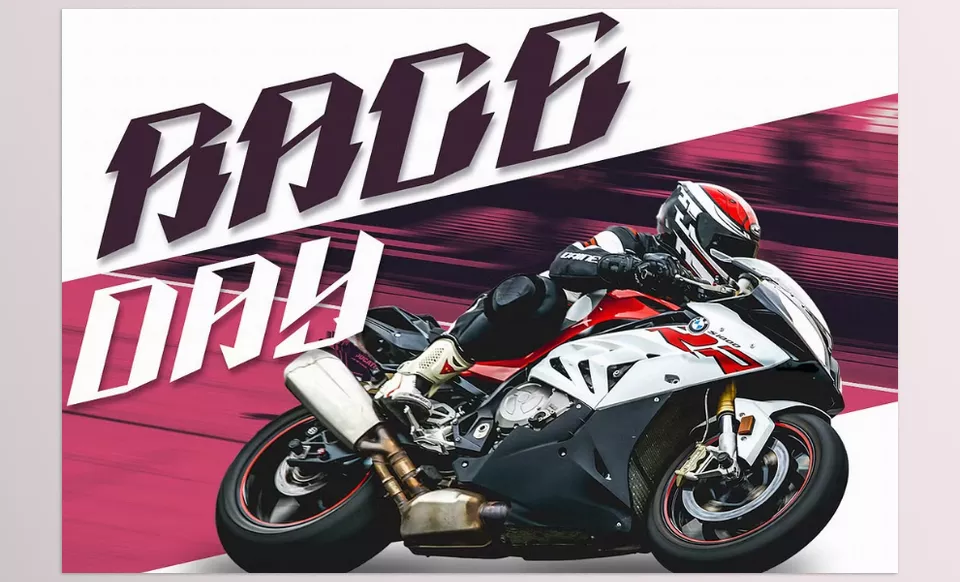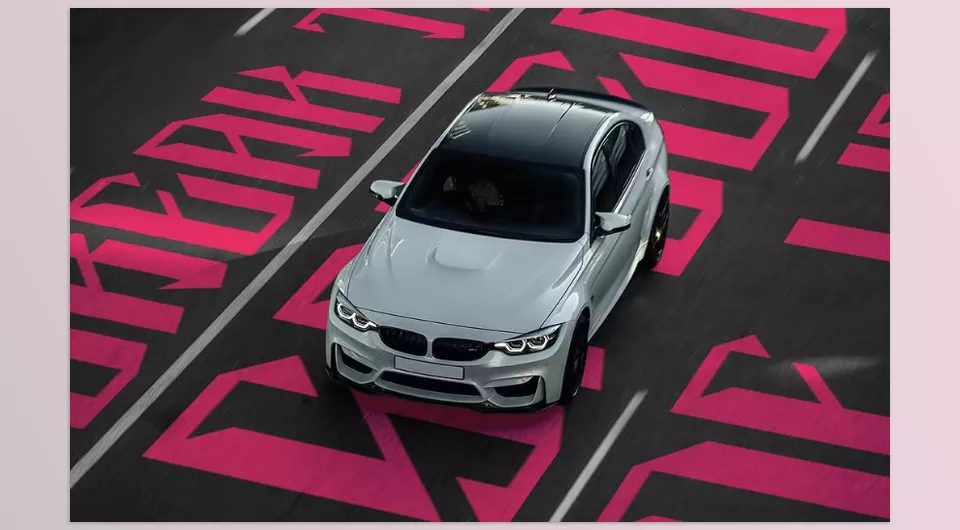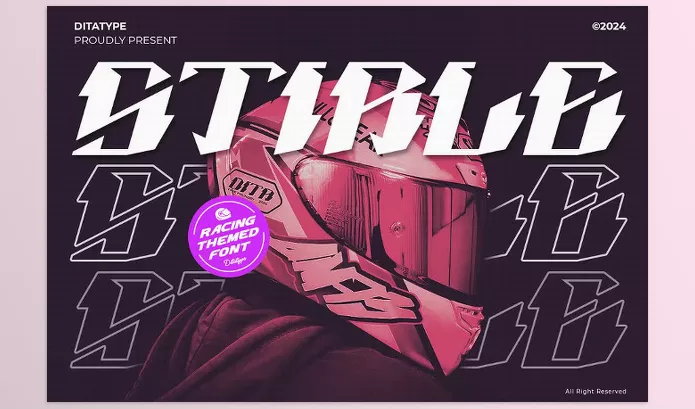
Creative Market – Stirle by Ditatype is a bold display font characterized by the incredible sensation of speed and rugged energy. Designed for maximum impact, its irregular outlines make it suitable for Logo, Branding, and Editorial layout designs.
Ditatype – Stirle Features
• Irregular Outlines: The sneering rawness of energetic assets is embodied in an outline forged by former designs.
• Complete Character Set: Wide range of numerals, punctuations and special characters.
• Flexibility: It fits different logo designs, posters, flyers, branded materials, and print and editorial layouts.
Image 1: A bold display font inspired by the thrill and speed of racing.
Creative Market - Stirle - a bold display font inspired by the thrill and speed of racing.
Image 2: The unique, irregular outlines give the font an energetic, rugged feel.
Creative Market - Stirle - The unique, irregular outlines give the font an energetic, rugged feel.